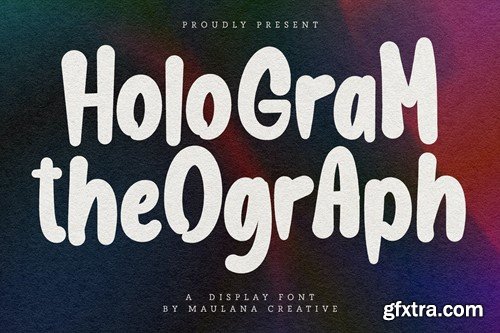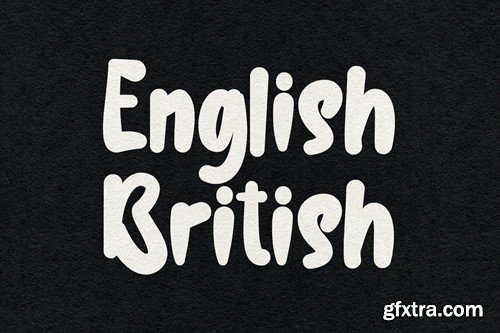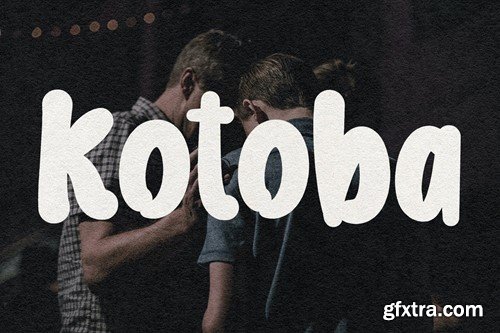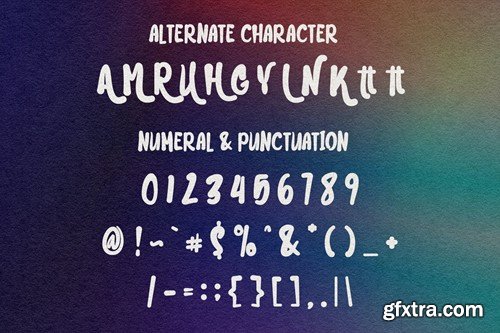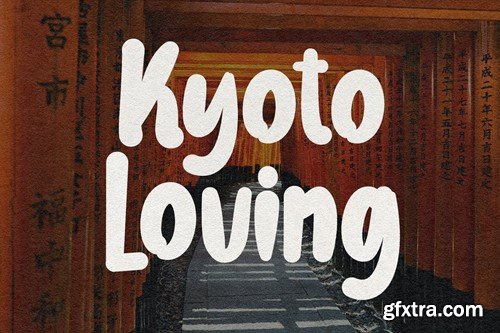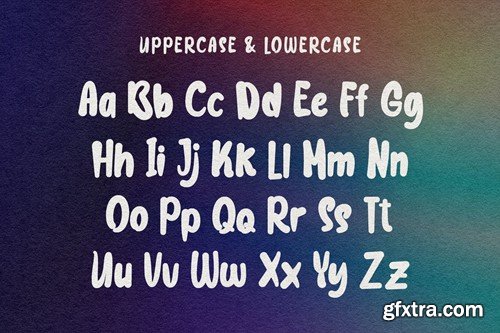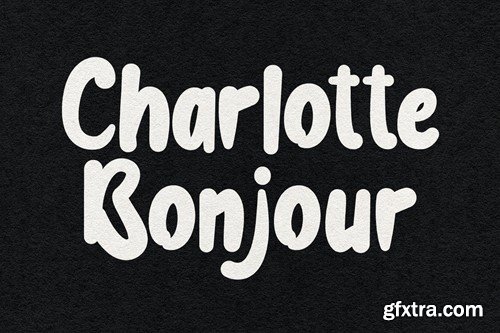
Hologram Theograph Display Font
Hologram Theograph display font. With medium soft stroke, fun character with a bit of ligatures and alternates. To give you an extra creative work. Hologram Theograph display font support multilingual more than 100+ language. This font is good for logo design, Social media, Movie Titles, Books Titles, a short text even a long text letter and good for your secondary text font with script or serif. Make a stunning work with Hologram Theograph display font. What you get: Cheers, Maulana Creative